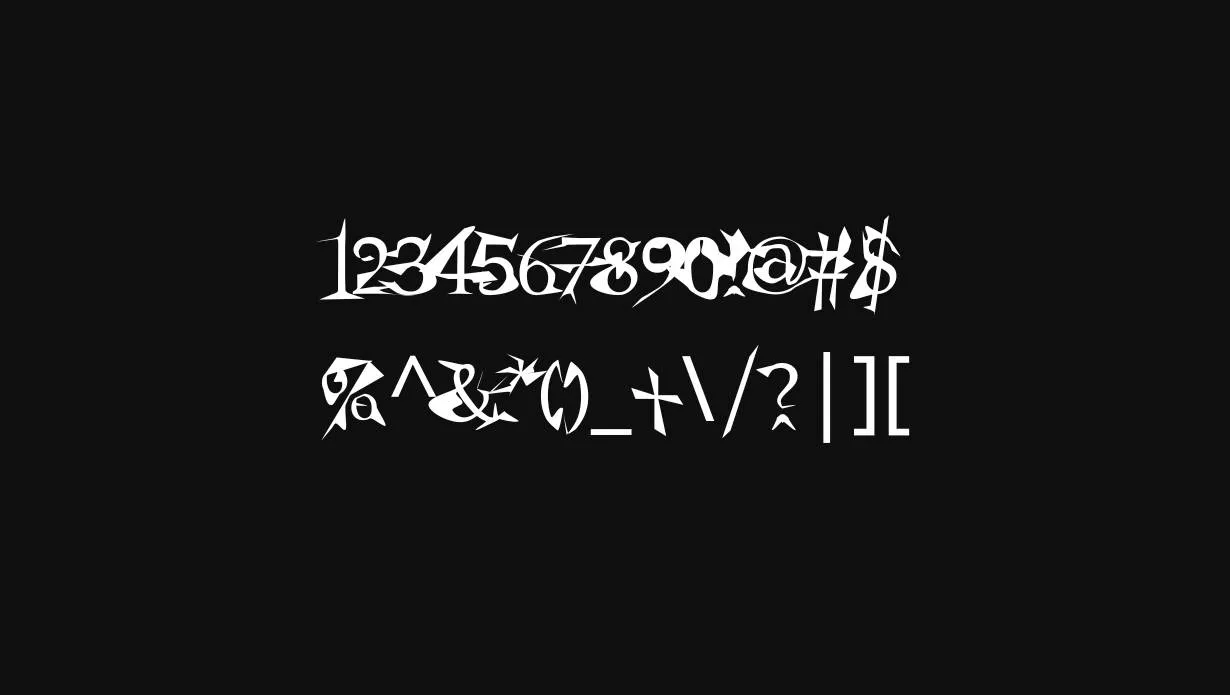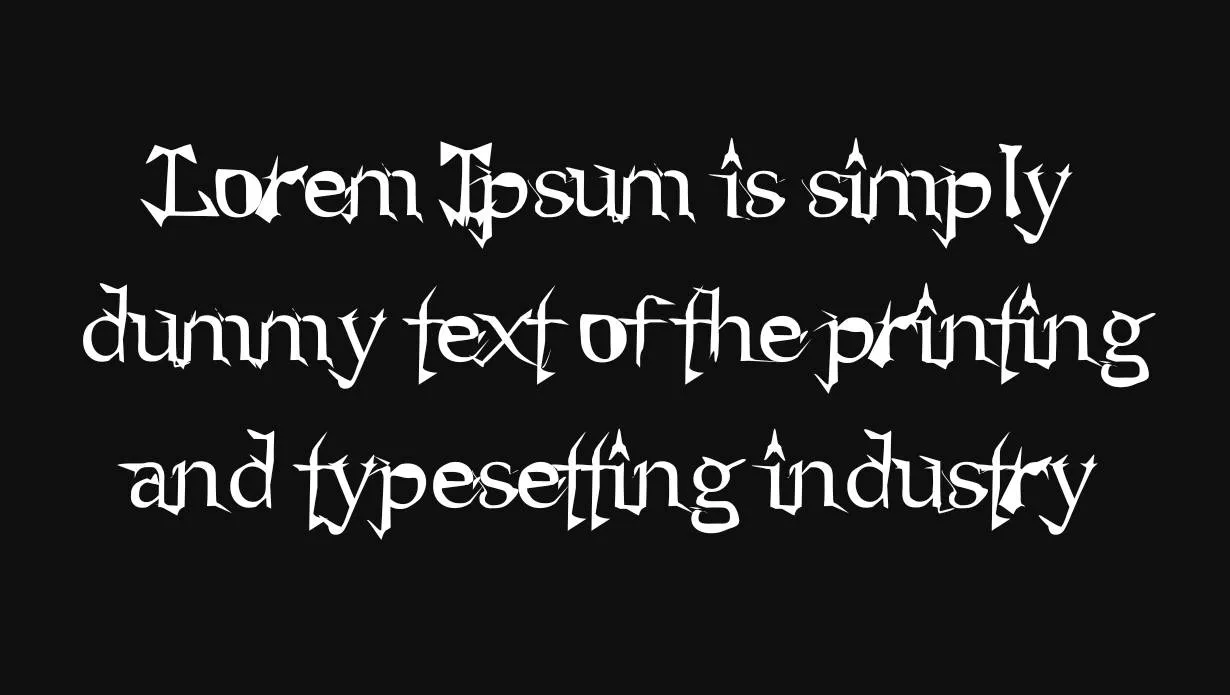
Alien Font is part of the Fancy font family, designed by MC Creative, and comes with an open font license for various projects. It is available in TTF and OTF formats.
It also contains stylish and decorative characters that can give a stunning and stand-out texture to anything.